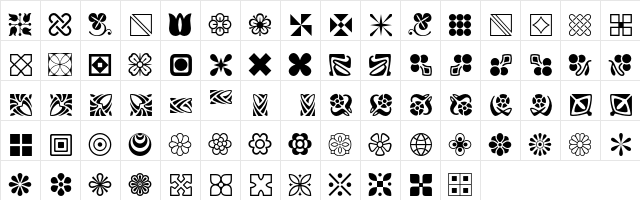
Linotype Decoration Pi 2
Design Context for Linotype Decoration Pi Typeface
Linotype Decoration Pi is a composed and adaptable typeface that performs quietly and consistently across a wide range of design contexts.